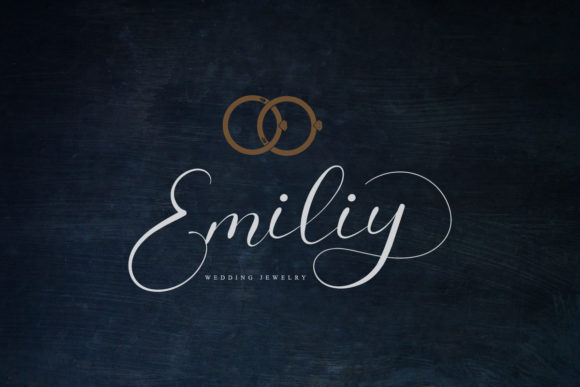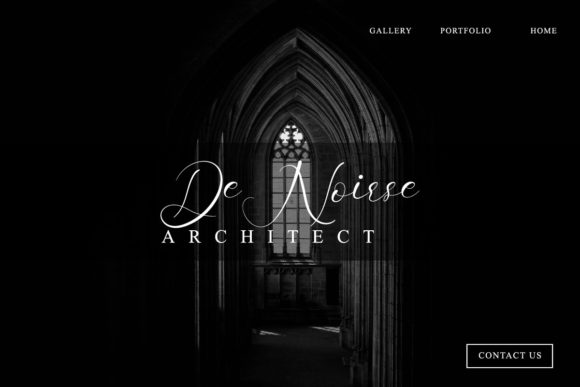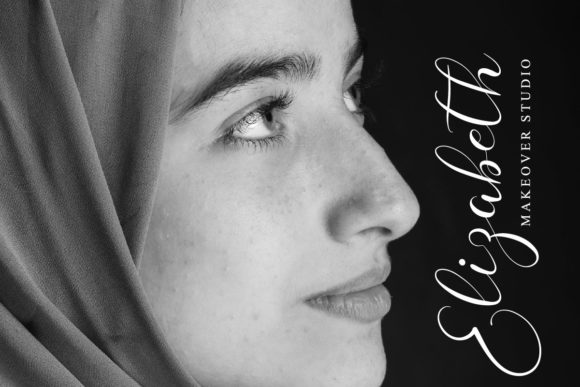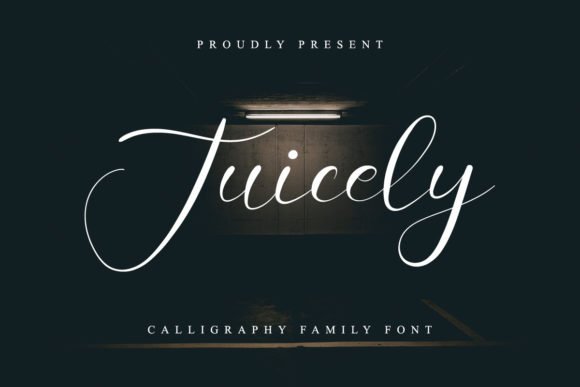
Introduction to Juicely Font
Juicely is an elegant and dainty handwritten font that features sweet and delicate swashes.
Key Features of Juicely Font
Why Choose Juicely Font?